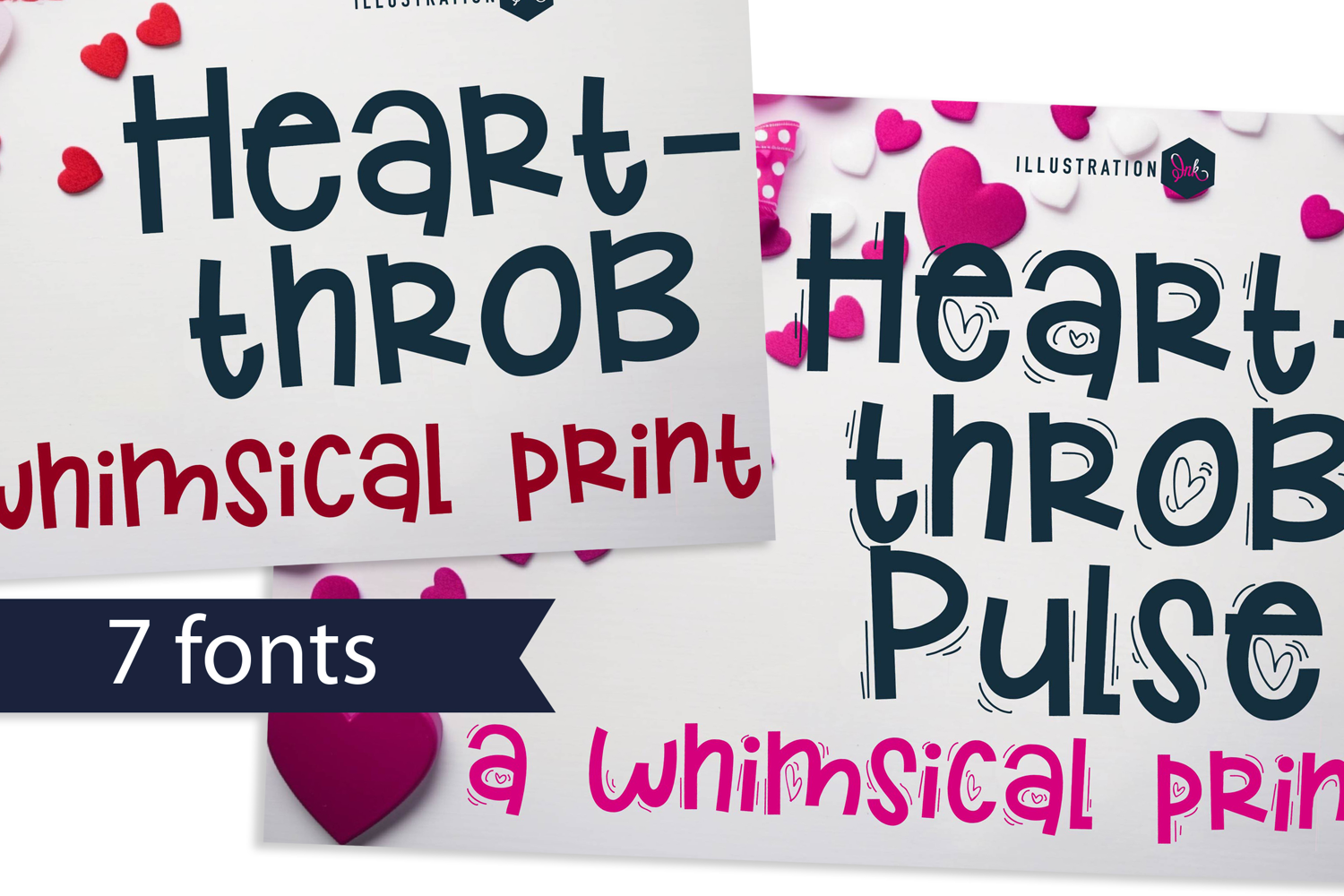
PN Heart Throb Font Family
This hand-crafted font is a whimsical, sans serif with some family members sporting hearts and throbs. There are 7 variations included.
• The letters are not perfectly uniform in size or shape.
• There may be slight variations in the spacing between letters and words.
• The font may have a "wiggly" or "squiggly" appearance.
• The font may be difficult to read at small sizes.